I love how a single halloween slime font can change the entire mood of a project. Whether you are aiming for a playful kids’ party or a dark horror movie vibe, these 27 handpicked options will bring your most creative ideas to life instantly.
Dripping Letterforms for Spooky Season Projects
Gooey typography bridges the gap between fun seasonal crafts and full-blown horror aesthetics. This selection features 27 oozing, melting typefaces with thick drips, organic liquid contours, and playful distortions. Illustrators, event planners, and DIY crafters gain a versatile toolkit of slime-covered letterforms suitable for trick-or-treat stickers, haunted house posters, party invitations, and thematic apparel prints.
1. Halloween Ghost Font: A Playful Blend Of Spirits And Slime
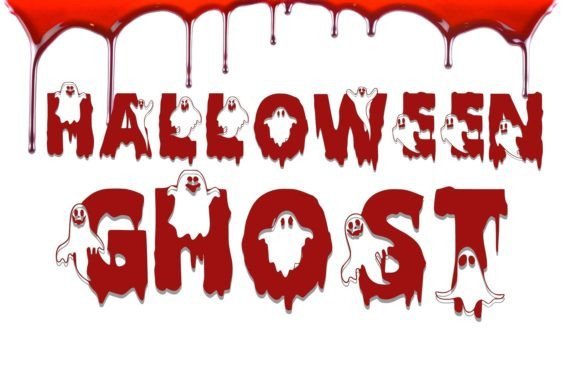
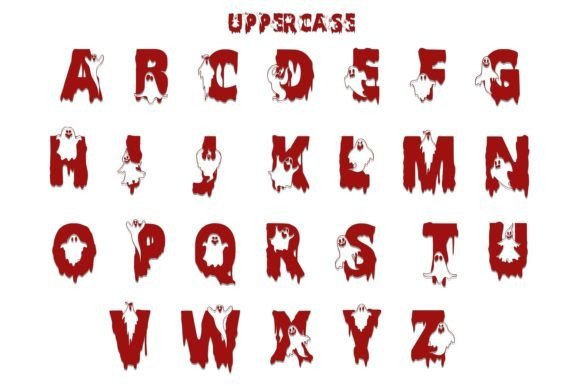
I absolutely love how Halloween Ghost manages to be both eerie and incredibly charming at the same time. This halloween slime font features thick, dripping letterforms that look like they were plucked straight from a haunted swamp, but the addition of those tiny, smiling ghosts tucked into the negative spaces adds a perfect touch of whimsy. It’s a fantastic choice for spooky invitations, creepy party banners, or playful t-shirt graphics where you want to capture the spirit of October without being too terrifying.
What really stands out to me is the unique personality of each character; the ghosts interact differently with every letter, giving your text a hand-drawn, custom feel. This font is a dream for thematic branding and festive social media posts because it stays legible even with its gooey, melting edges. If you are looking for a way to add a bit of “boo” to your next creative project, this typeface delivers that gooey, ghostly energy effortlessly.
2. Slime Drip Halloween: Perfect For Toxic Monster Branding
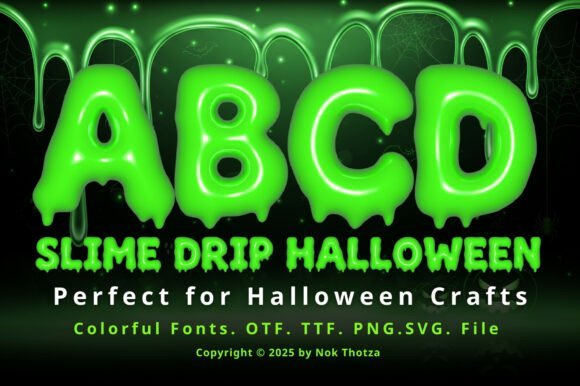
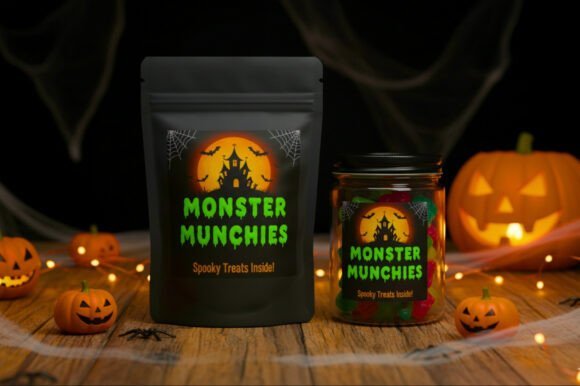
I am completely obsessed with the radioactive glow of Slime Drip Halloween. This halloween slime font feels like it was dipped in a vat of neon toxic waste, featuring thick, 3D bubbly letters that practically pop off the screen. The glossy, rounded finish gives it a polished look that balances being creepy with a high-energy, modern vibe. It is my top recommendation for monster-themed packaging, candy jar labels, and vibrant party posters that need to grab attention from across a dark room.
What makes this typeface a winner for me is the perfect “drip” physics on every letter, which makes it feel fluid and alive. It works incredibly well for digital graphics and DIY craft projects where you want a playful, slimy aesthetic without losing readability. Since the letters are so bold and chunky, they provide a great canvas for bright colors, making your social media headers look professional and festive. It is exactly what you need to give your designs a fun, gooey edge.
3. Zombie Halloween: Give Your Text A Gritty And Meltdown Look
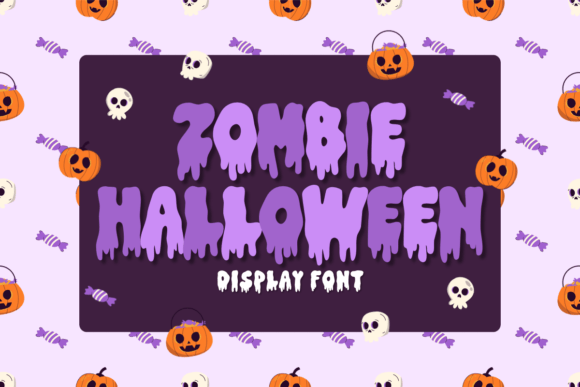
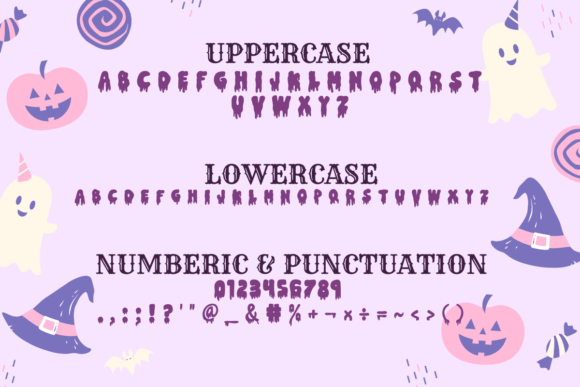
A hauntingly beautiful choice, Zombie Halloween captures that perfect balance between classic horror and modern flair. This halloween slime font features elongated, jagged drips that look like they are melting right off the page, giving every word a sense of eerie movement. It is my go-to for horror movie posters, zombie-themed apparel, and creepy book covers where you need a typeface that feels both heavy and menacing.
The thin, sharp points at the bottom of each letter provide a unique silhouette that stands out against busy backgrounds. I find it especially effective for event flyers and grim social media headers because it maintains a high level of detail even in smaller sizes. If your goal is to create something that looks like it crawled out of a grave, this font offers that gritty, visceral energy your project needs to truly chill your audience.
4. Halloween Retro Font: A Nostalgic Trip To Spooky Town
I am absolutely charmed by the nostalgic energy radiating from Halloween Retro. This halloween slime font perfectly blends thick, melting drips with classic Jack-o’-lantern faces carved directly into the letterforms. It feels like a tribute to vintage horror posters from the mid-century, offering a chunky, bold silhouette that is impossible to miss. It is a fantastic pick for retro-style branding, festive blog headers, and eye-catching advertisements that need a touch of old-school magic.
What I find most appealing is how the font balances a “creepy” melting effect with a friendly, playful personality. It works wonders for party invitations, custom planners, and thematic photo albums because it adds immediate character without being too dark. The hollowed-out pumpkin details provide a built-in decorative element, making it a dream for creative greeting cards and seasonal social media graphics. If you want your designs to feel authentic and fun, this typeface is a real treat.
Final Thoughts
Spooky season is the best time to step outside your comfort zone with bold, decorative typography. I’m confident that among these 27 halloween slime font picks, there is a style that speaks to your unique vision. Time to get spooky!